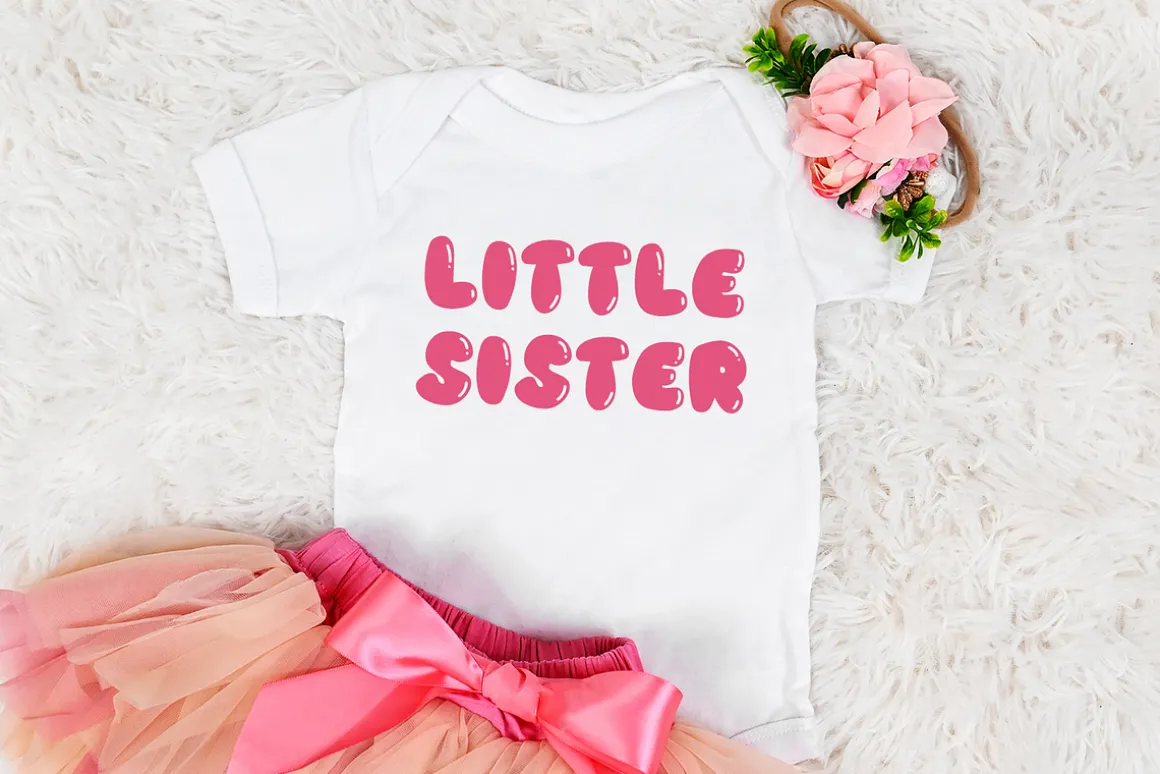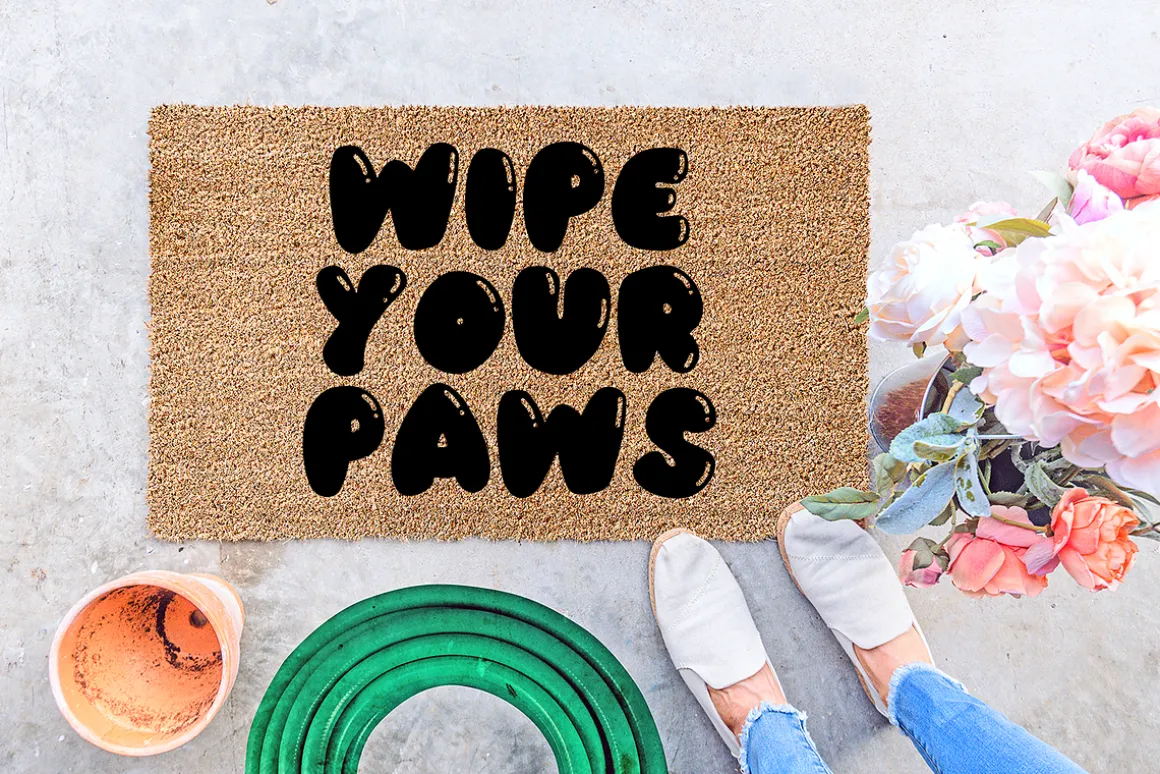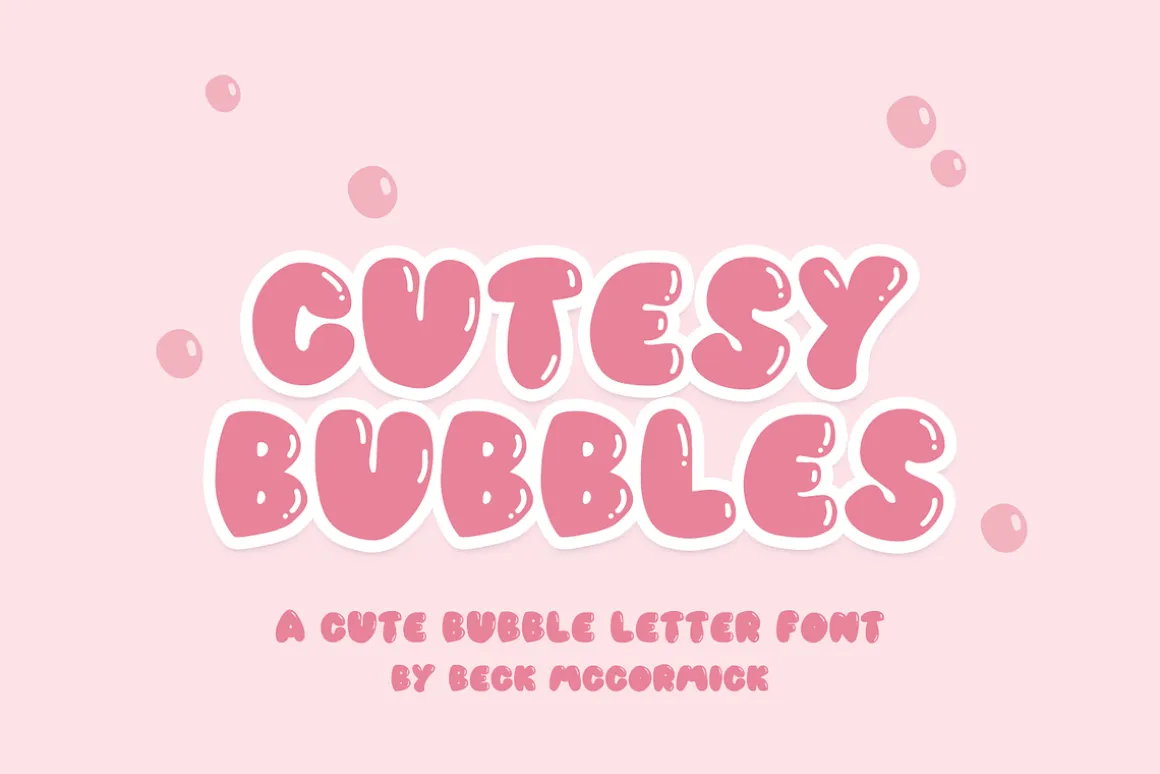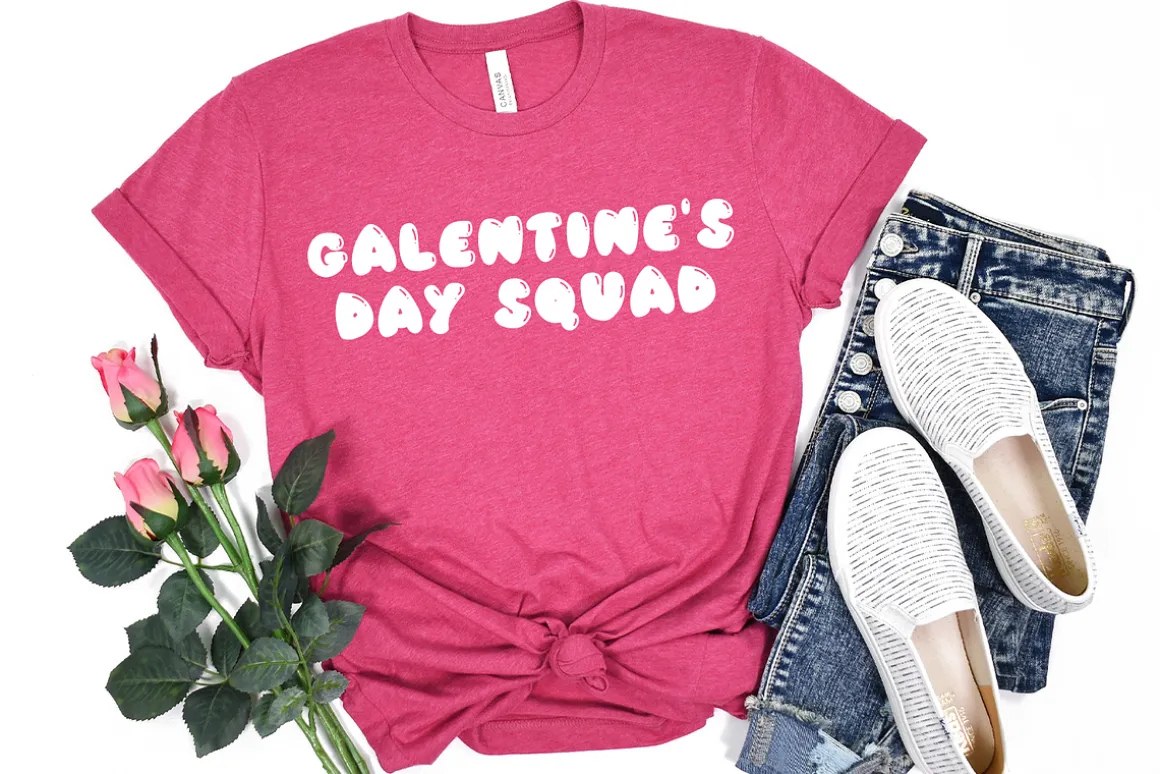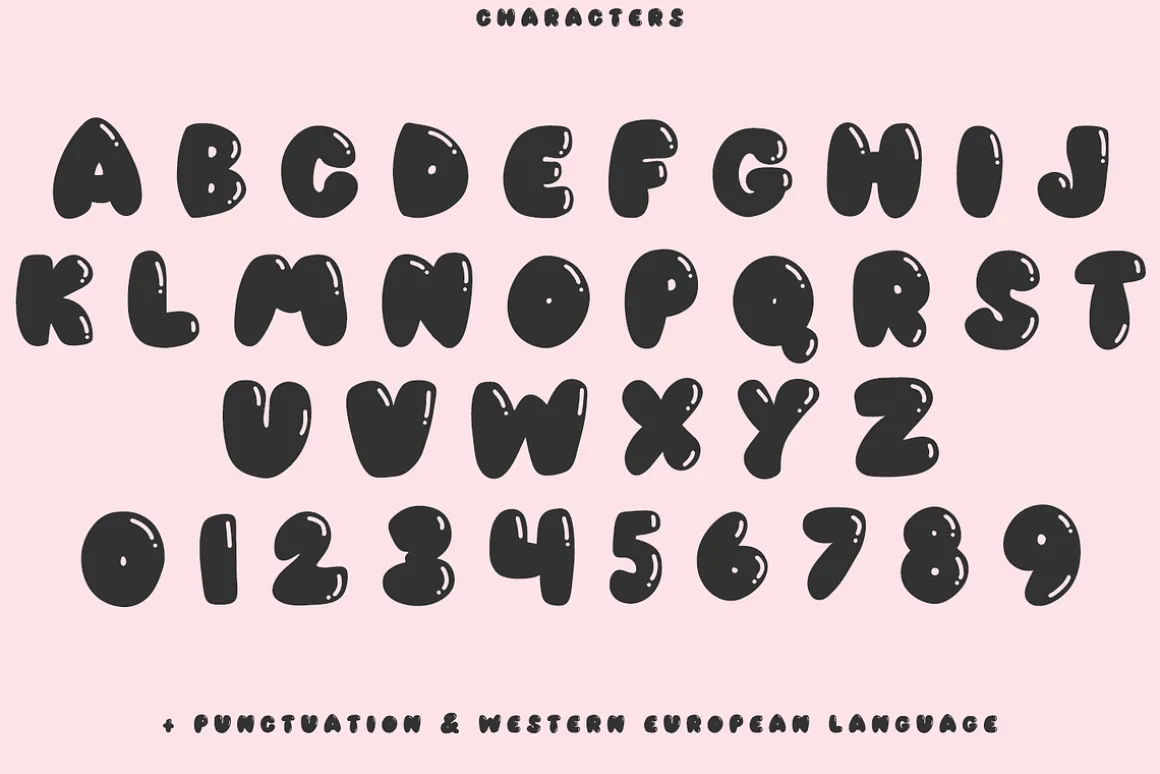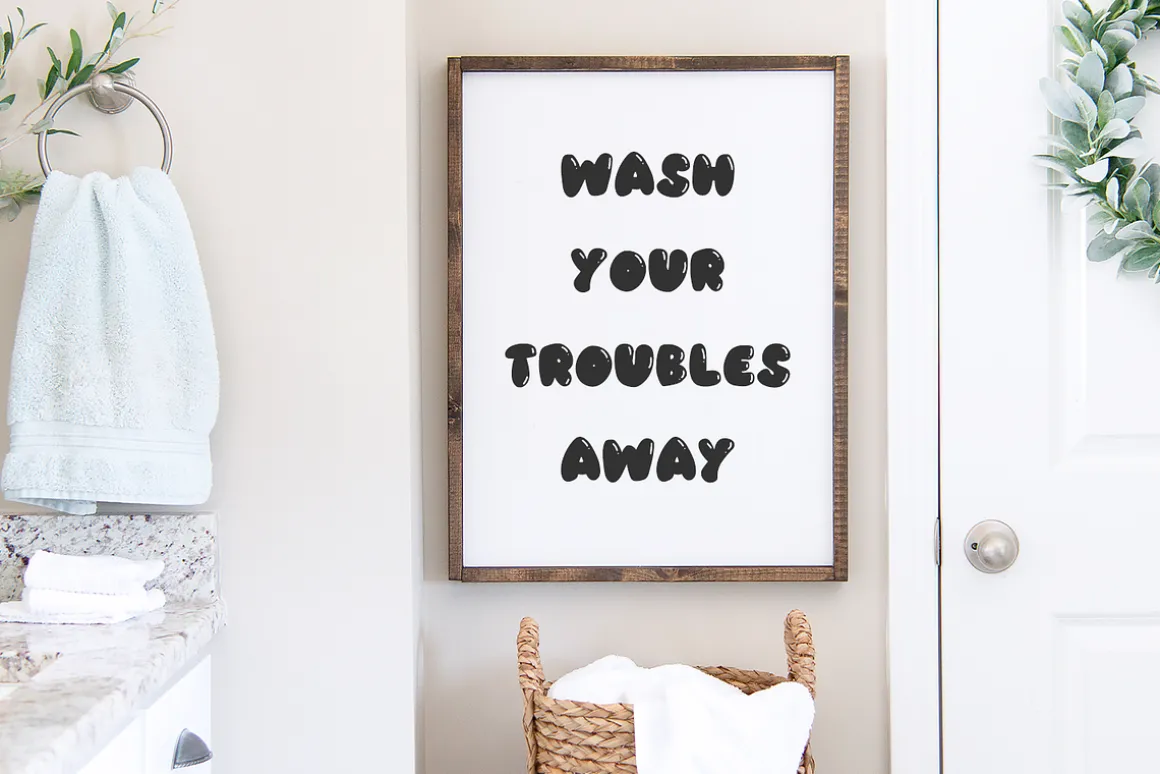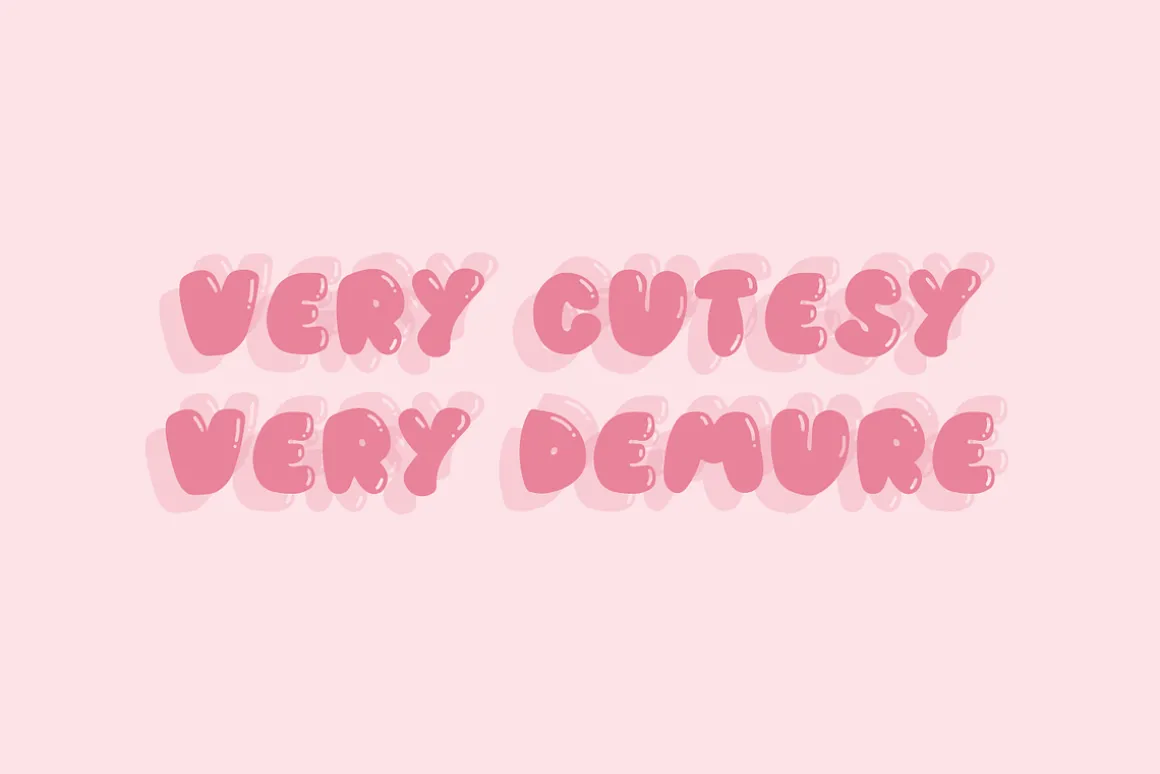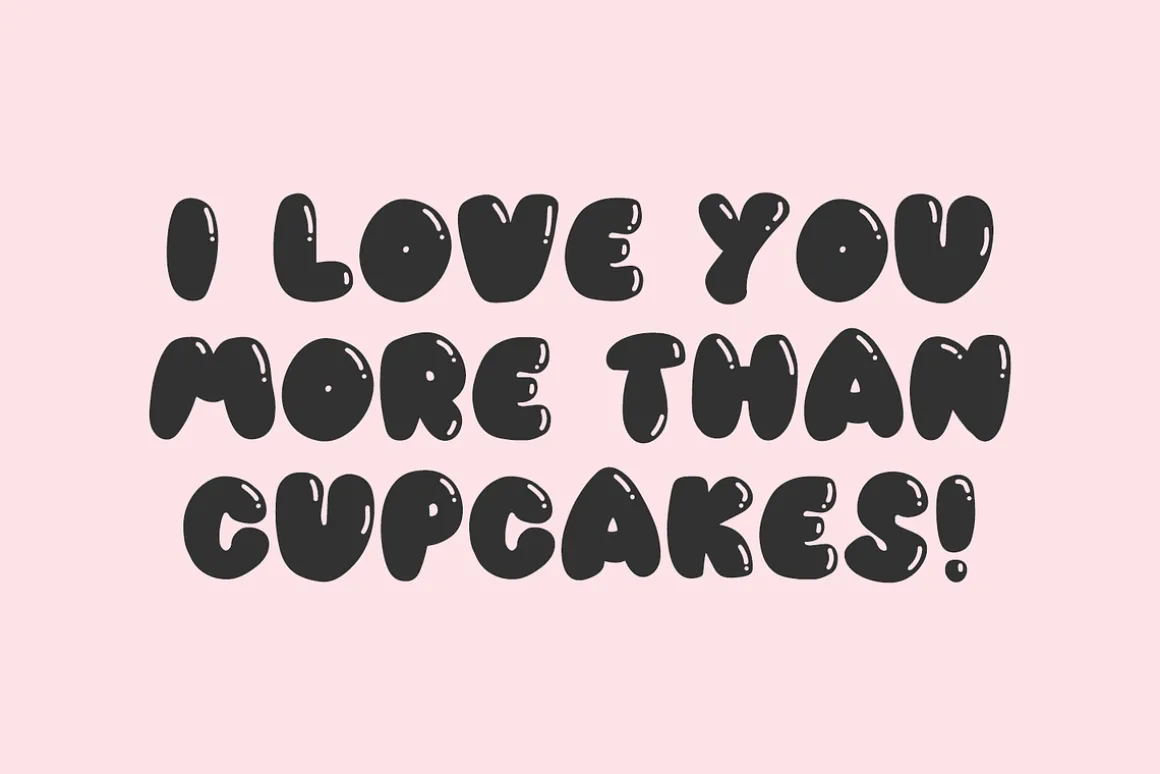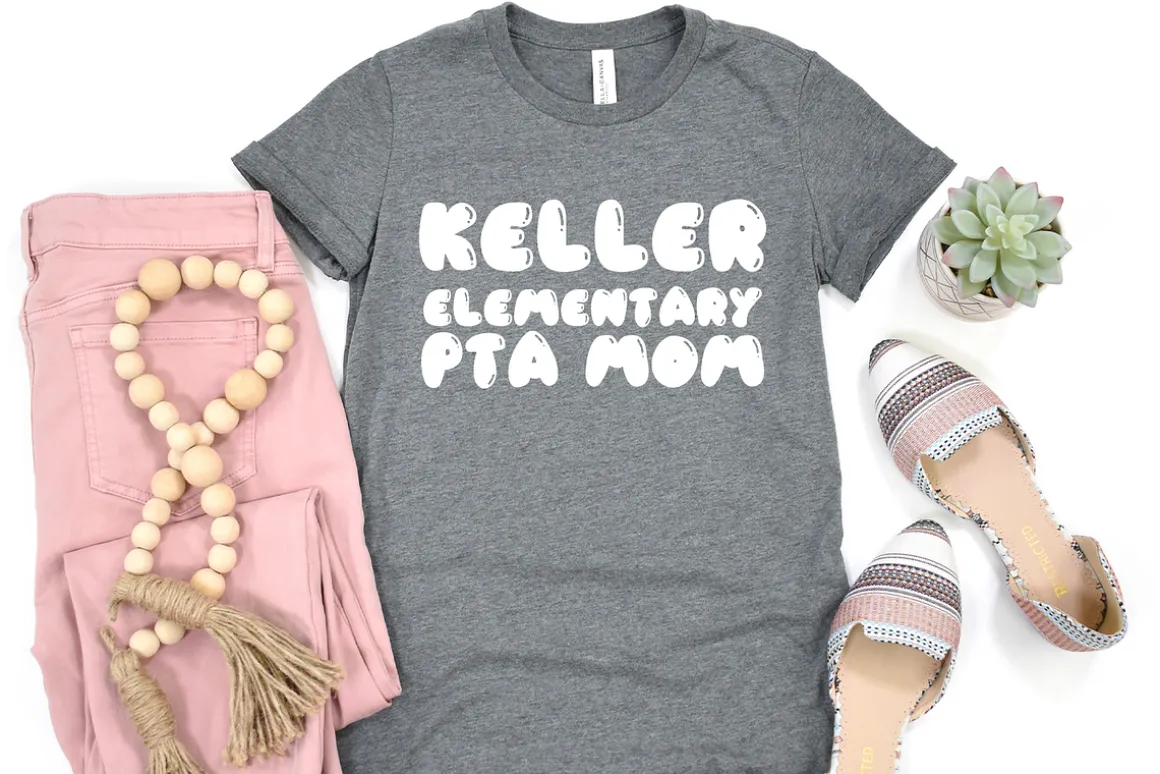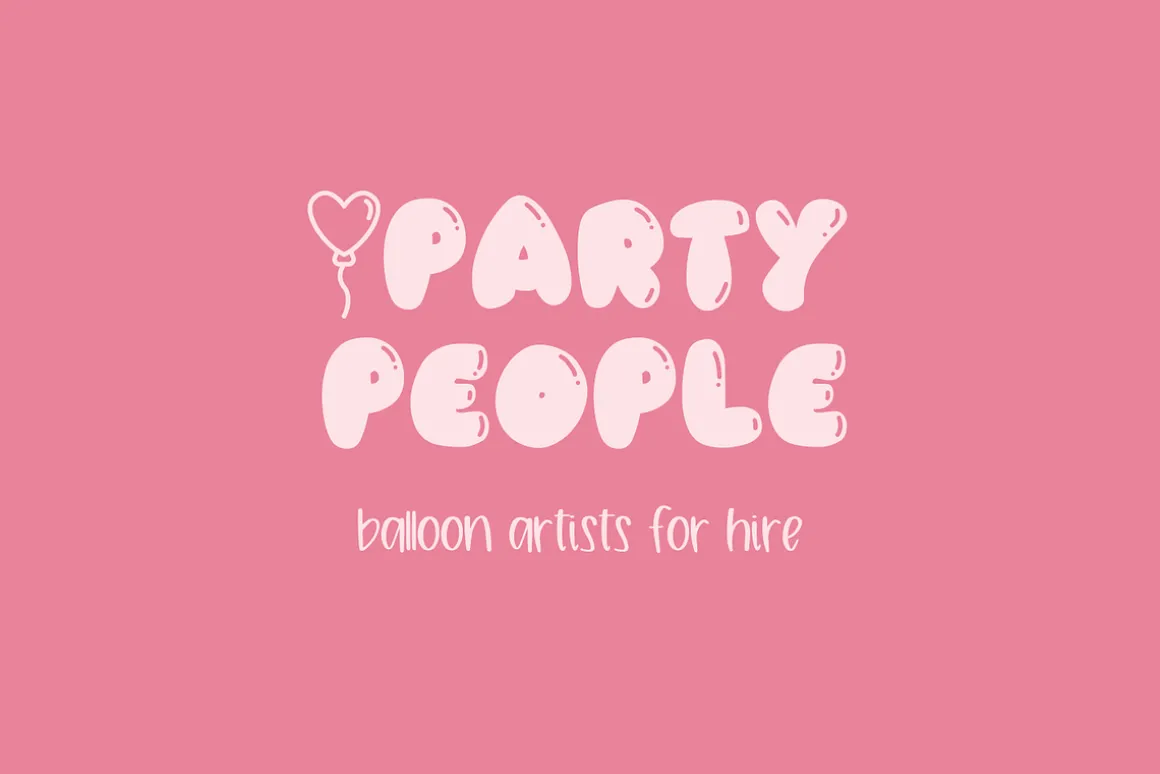
Cutesy Bubbles Sans is an adorable bubble-style font with little shiny accents. Cutesy Bubbles is all-caps, chunky, and super fun! It’s a great fit for any project that needs a bold display font, fun branding projects, or youthful t-shirt designs.
- full uppercase characters (the same characters are programmed into the lowercase glyphs, as well)
- numbers + punctuation
- Western European Language Support